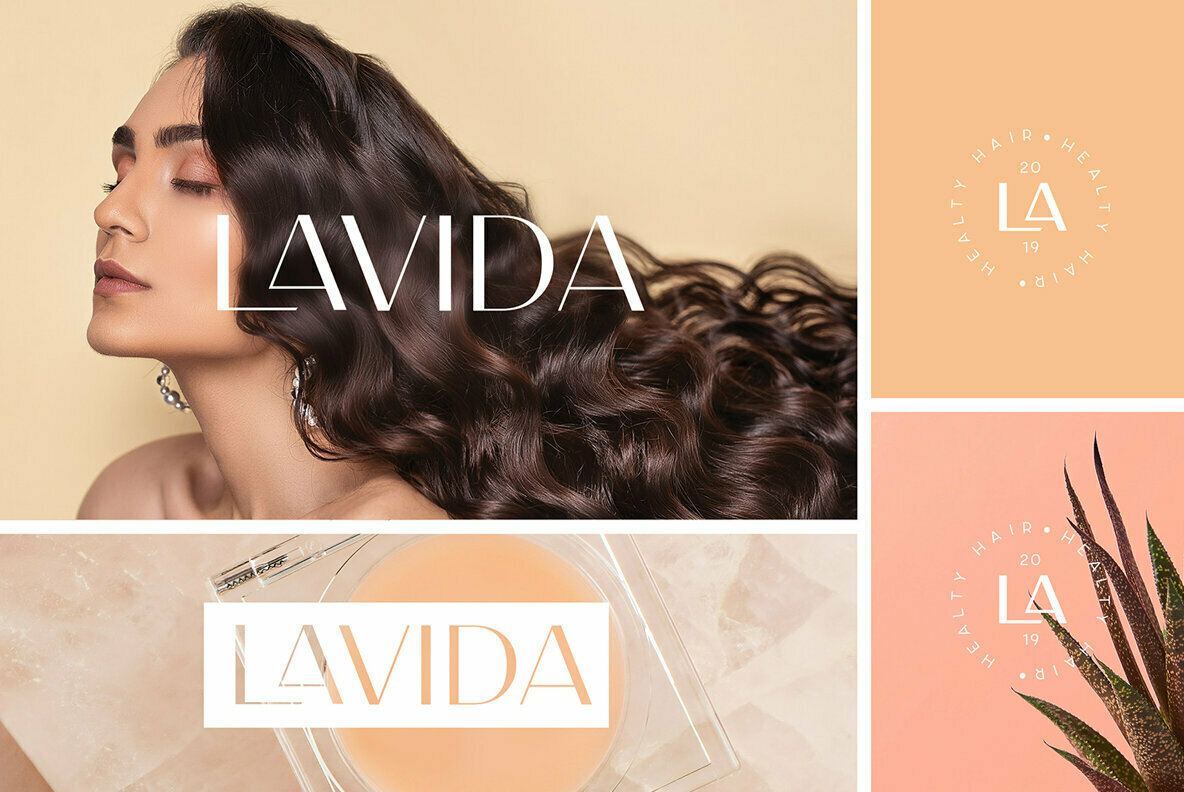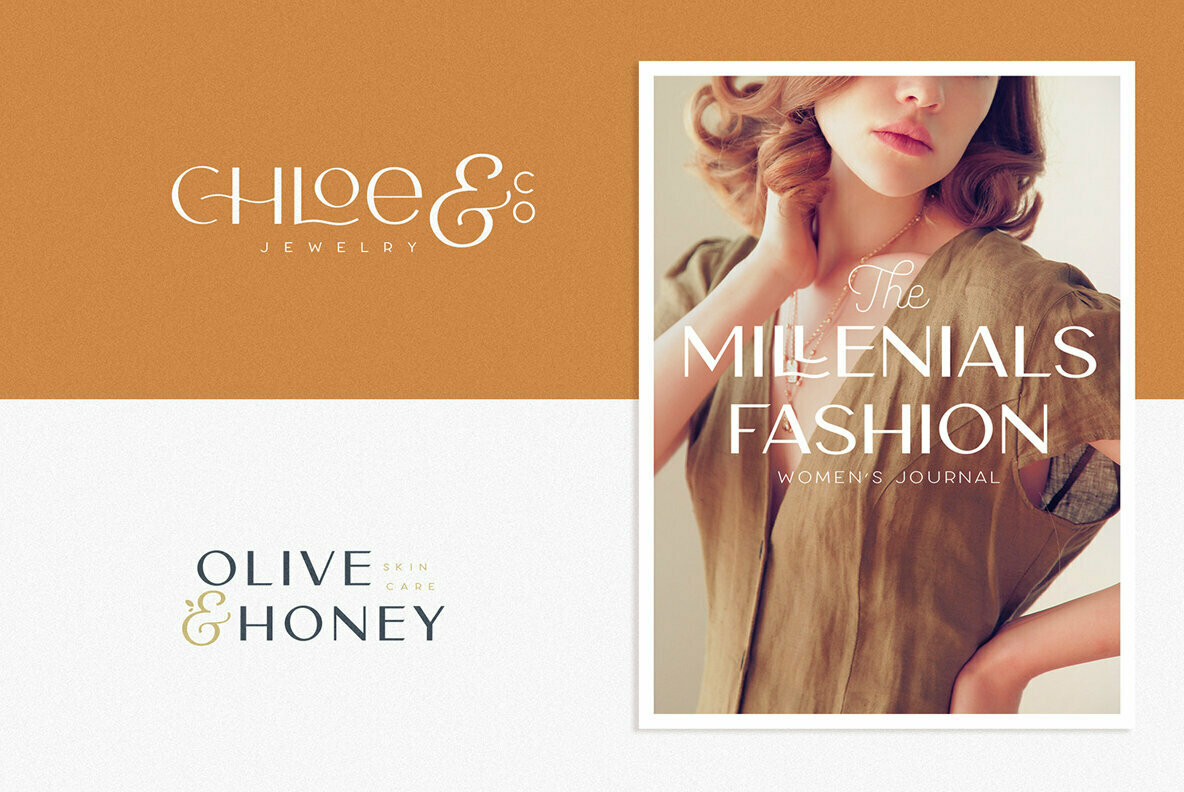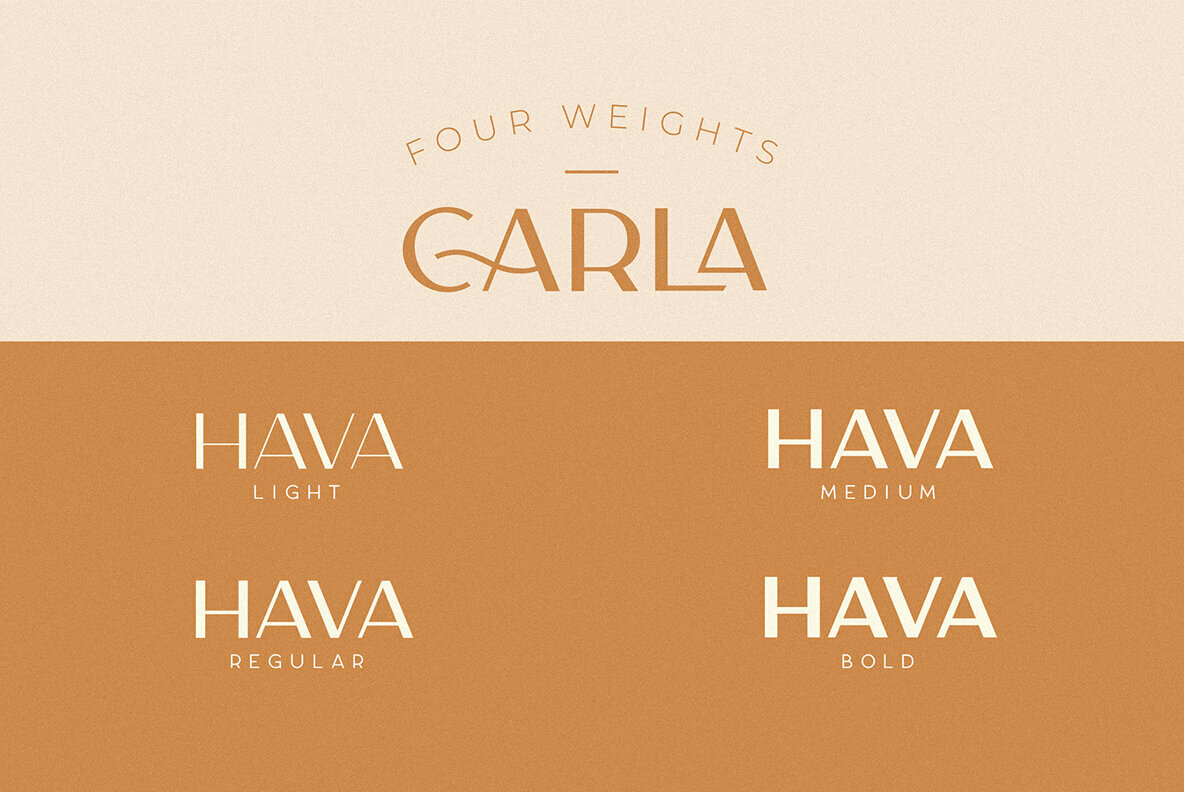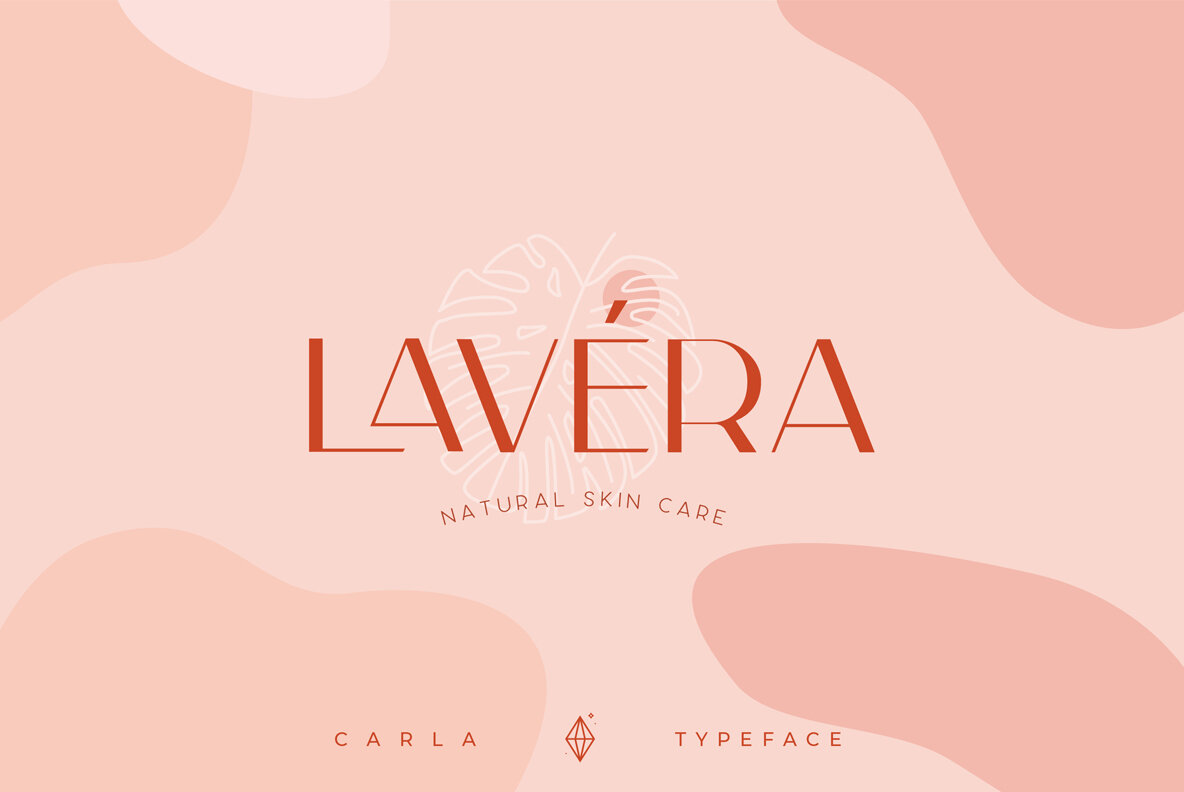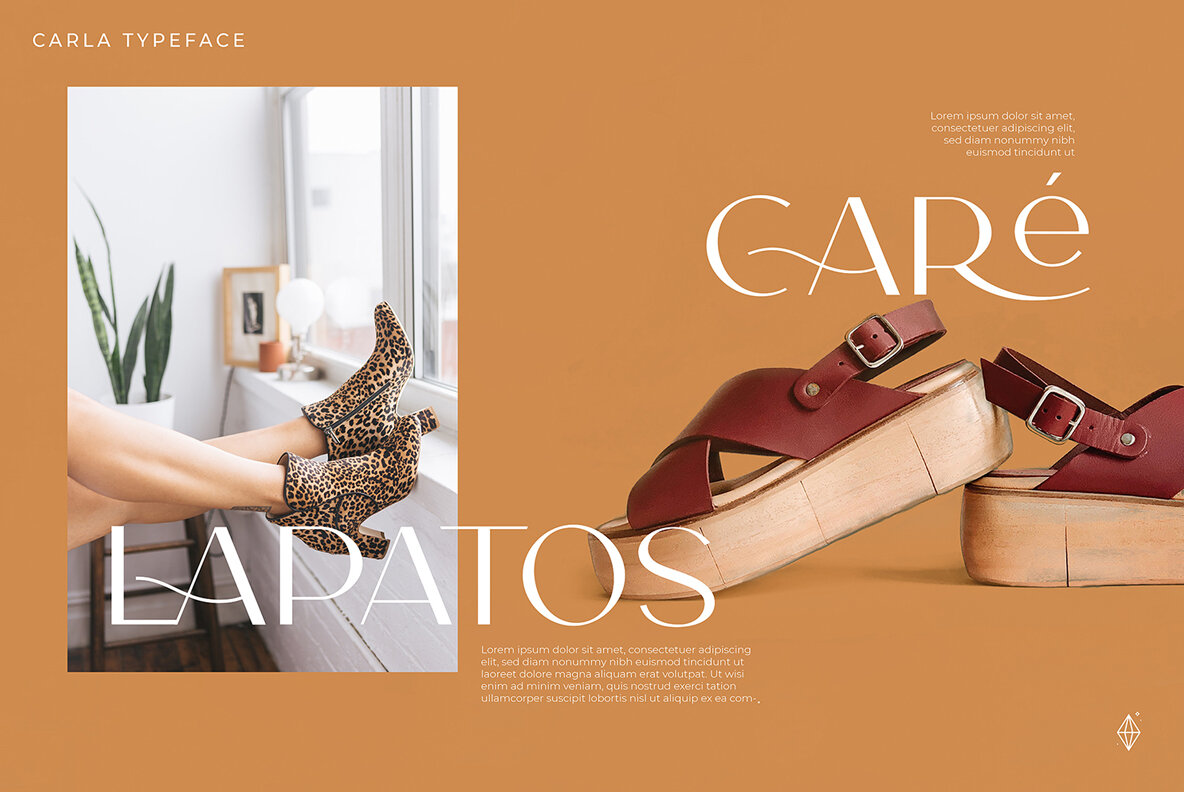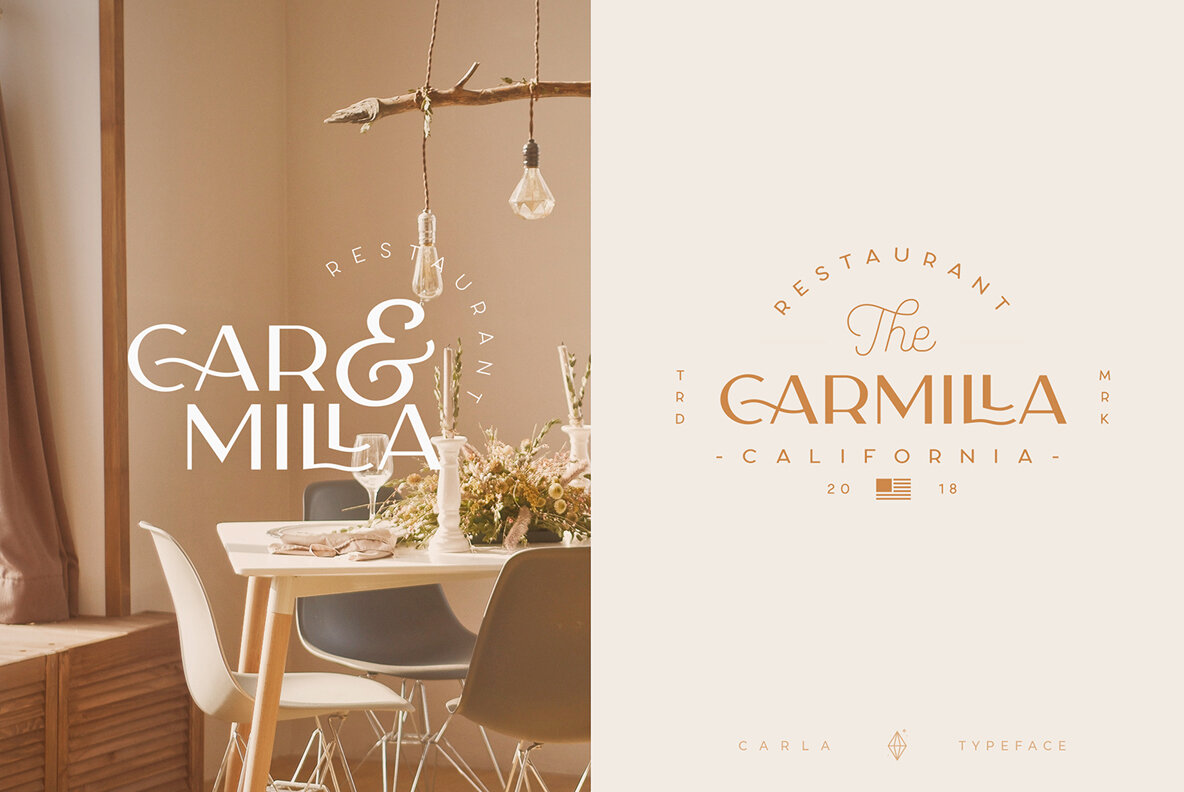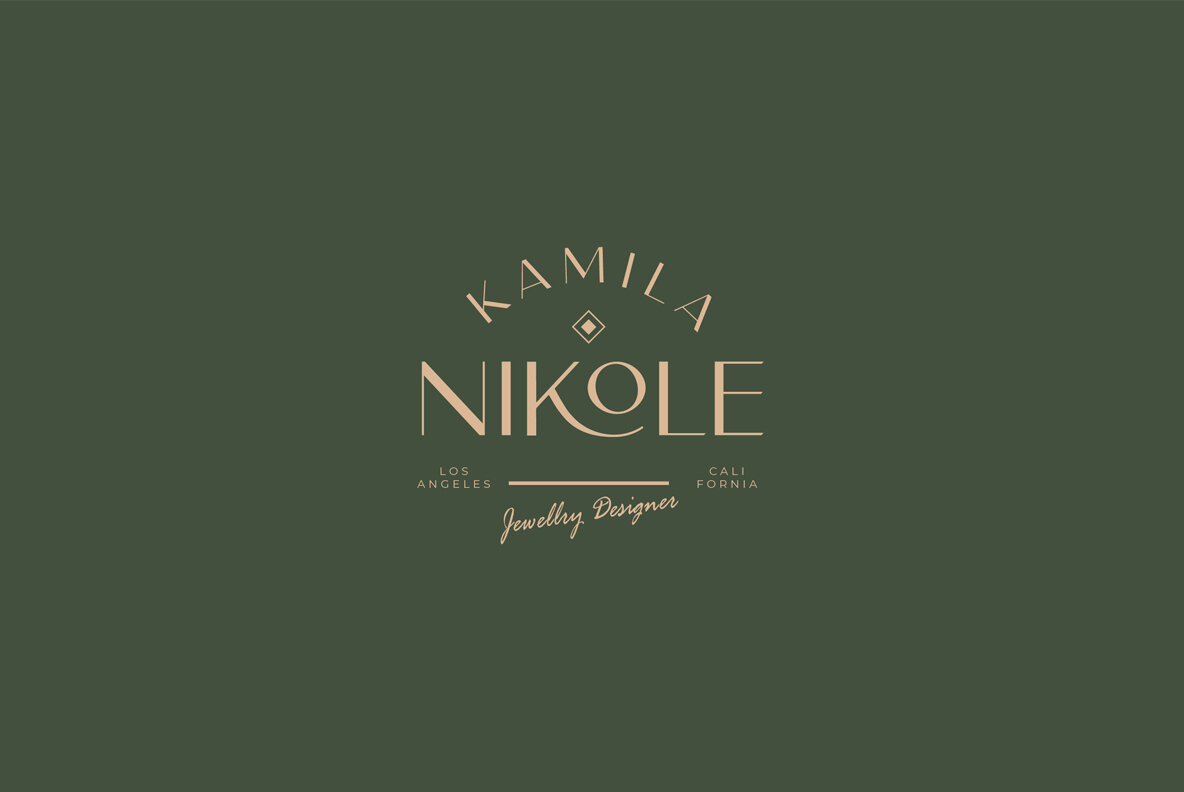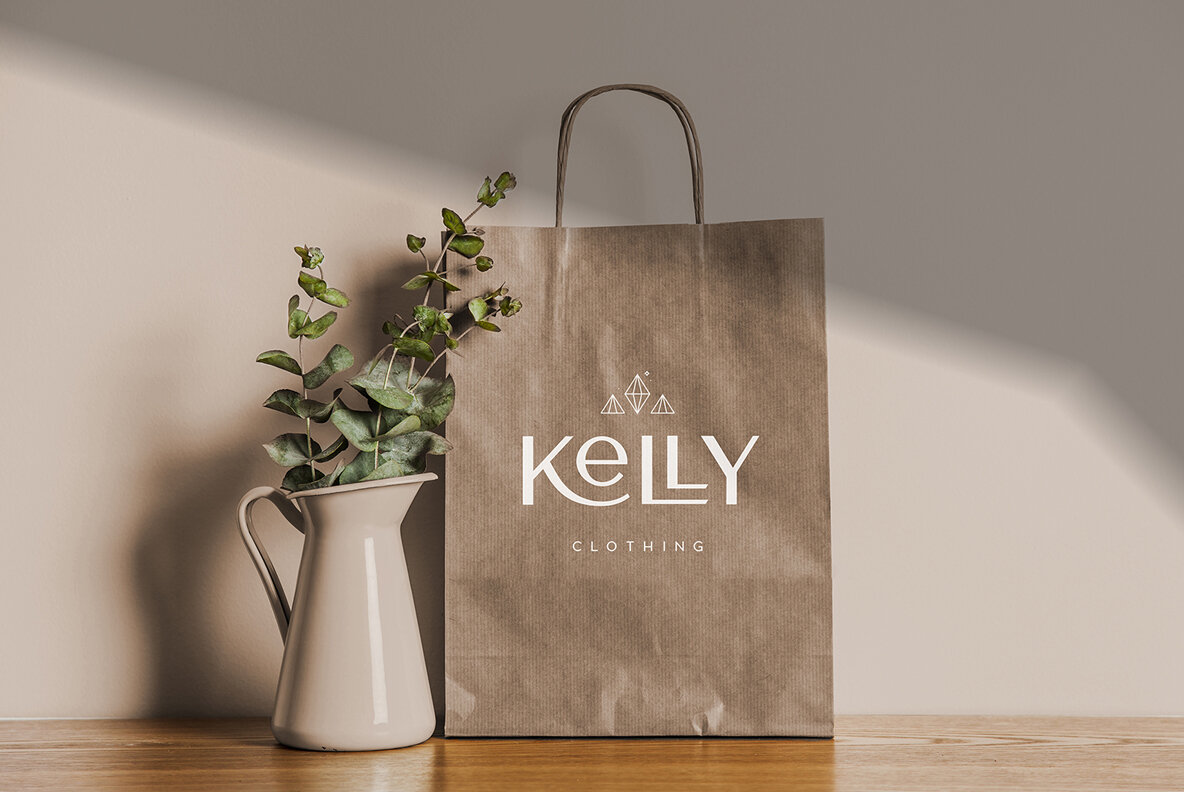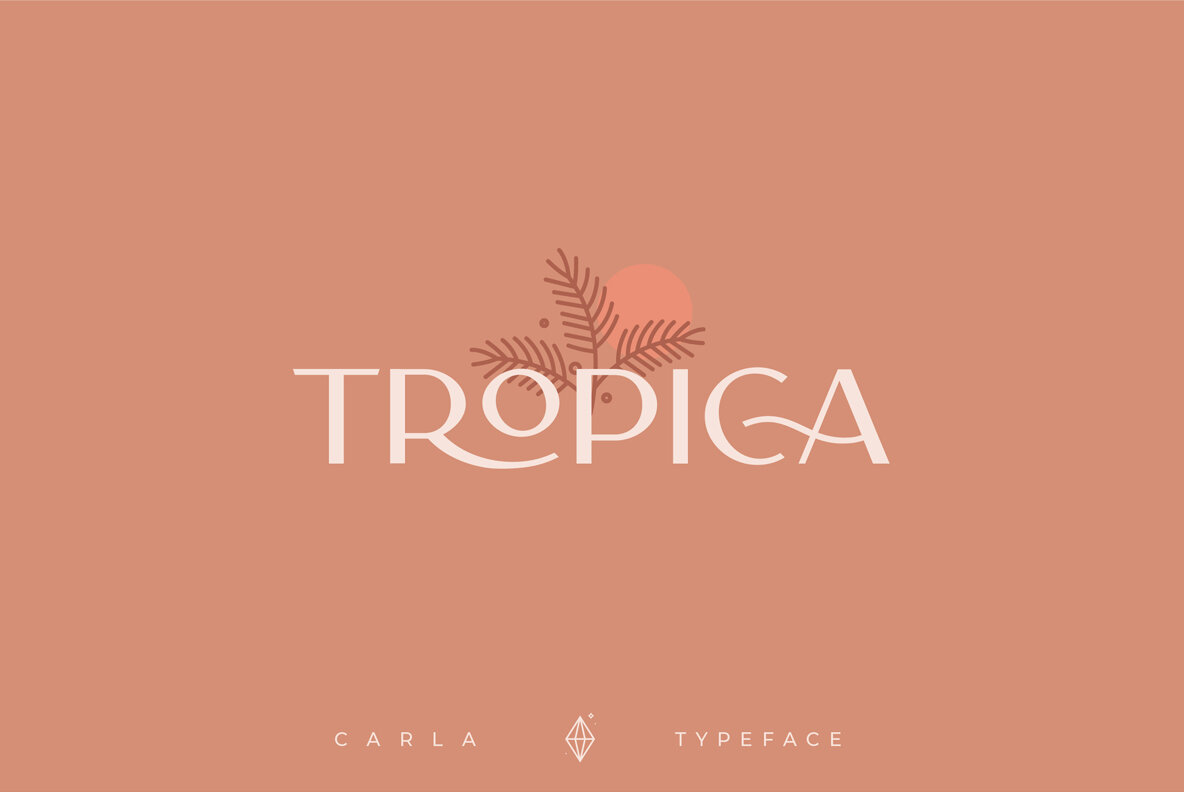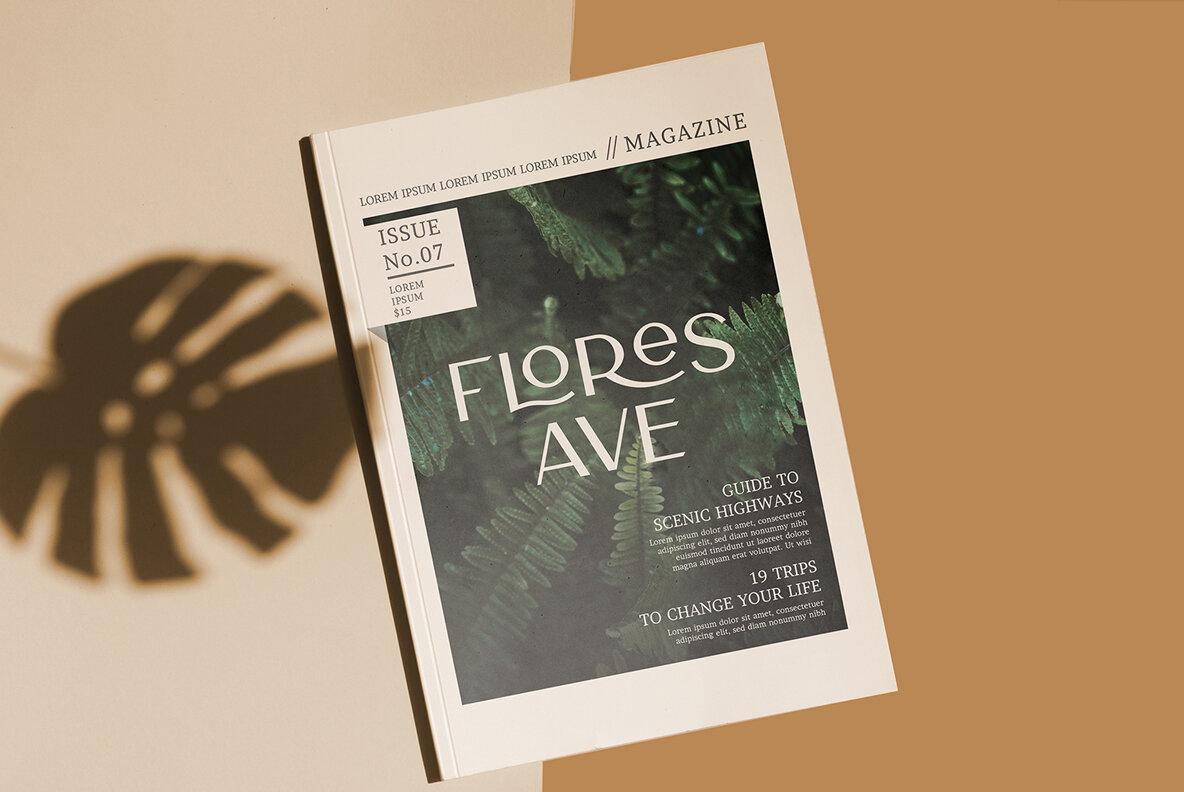
Carla Sans Font
Carla Sans is a Minimalist Modern Elegant font with beautiful ligatures, tons of special alternative glyphs, ornament and multilingual support. It's a very versatile font that works great in large and small sizes. Carla Sans is perfect for branding projects, Logo design, Clothing Branding, product packaging, magazine headers, or simply as a stylish text overlay to any background image.
- 4 Weights font (Light, Regular, Semibold and Bold)
- All caps
- Stylistic Alternates & Ligatures
- Numerals & Punctuation
- Accented characters
- Multiple Languages Supported